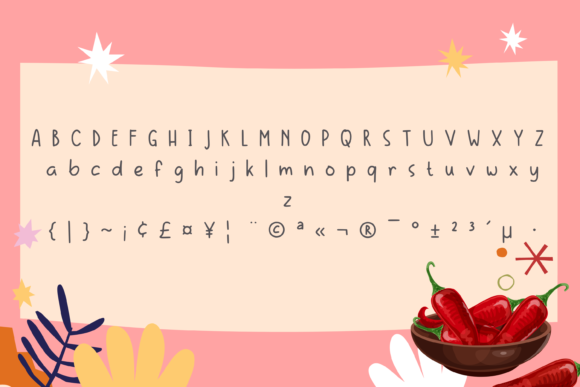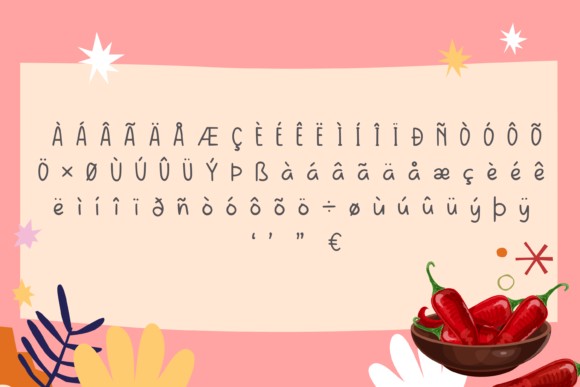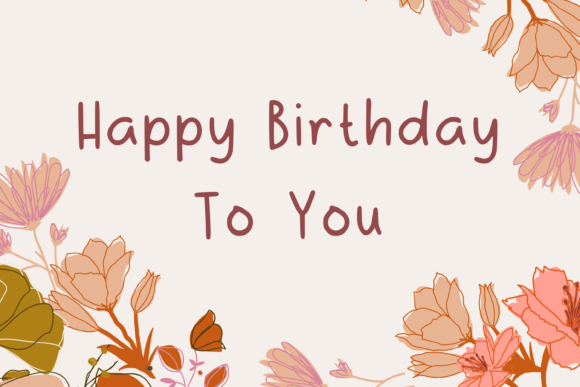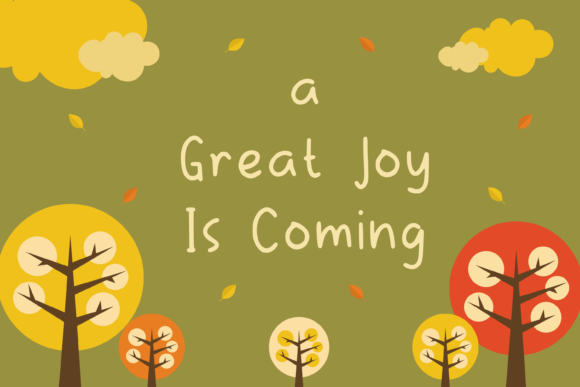
Cabe Rawit Font: The Perfect Addition to Your Design Arsenal
Are you tired of using the same old fonts in your designs? Look no further than Cabe Rawit Font, a cute and friendly handwritten font that’s sure to take your creations to the next level. With its curvy, readable, and down-to-earth style, Cabe Rawit Font is the perfect addition to your design arsenal.
What is Cabe Rawit Font?
Cabe Rawit Font is a unique and charming handwritten font that’s designed to add a personal touch to your designs. The font features a curvy and playful style that’s reminiscent of handwritten notes and letters. Its readability and friendly tone make it perfect for a wide range of design projects, from branding and packaging to invitations and social media graphics.
Key Features of Cabe Rawit Font
- Curvy and Playful Style: Cabe Rawit Font features a distinctive curvy and playful style that’s sure to add a touch of personality to your designs.
- Readable and Friendly Tone: The font is designed to be highly readable and friendly, making it perfect for designs that require a personal touch.
- Down-to-Earth Style: Cabe Rawit Font has a down-to-earth style that’s perfect for designers who want to create designs that feel approachable and relatable.
- Versatile and Adaptable: The font is highly versatile and adaptable, making it suitable for a wide range of design projects and applications.
Why Use Cabe Rawit Font?
So, why should you use Cabe Rawit Font in your designs? Here are just a few reasons:
- Add a Personal Touch: Cabe Rawit Font is the perfect way to add a personal touch to your designs and make them stand out from the crowd.
- Create Engaging Designs: The font’s curvy and playful style is sure to capture the attention of your audience and keep them engaged.
- Perfect for Branding and Marketing: Cabe Rawit Font is perfect for branding and marketing projects, where you want to create a friendly and approachable tone.
- Easy to Read and Understand: The font’s readability makes it easy for your audience to read and understand your message.
How to Use Cabe Rawit Font
Using Cabe Rawit Font is easy and straightforward. Here are a few tips to get you started:
- Pair it with Other Fonts: Cabe Rawit Font pairs well with other fonts, so feel free to experiment with different combinations to find the perfect look for your design.
- Use it for Headings and Body Text: The font is suitable for both headings and body text, making it a versatile addition to your design arsenal.
- Experiment with Colors and Textures: Cabe Rawit Font looks great in a variety of colors and textures, so don’t be afraid to experiment and find the perfect look for your design.
Who is Cabe Rawit Font for?
Cabe Rawit Font is perfect for designers, crafters, and anyone who wants to add a personal touch to their designs. Here are a few examples of who might find Cabe Rawit Font useful:
- Graphic Designers: Cabe Rawit Font is perfect for graphic designers who want to create engaging and effective designs for their clients.
- Crafters and Makers: The font is also great for crafters and makers who want to add a personal touch to their products and branding.
- Small Business Owners: Cabe Rawit Font is perfect for small business owners who want to create a friendly and approachable tone for their brand.
In conclusion, Cabe Rawit Font is a unique and charming handwritten font that’s perfect for designers, crafters, and anyone who wants to add a personal touch to their designs. With its curvy, readable, and down-to-earth style, Cabe Rawit Font is sure to take your creations to the next level. So why not give it a try and see the difference it can make in your designs?